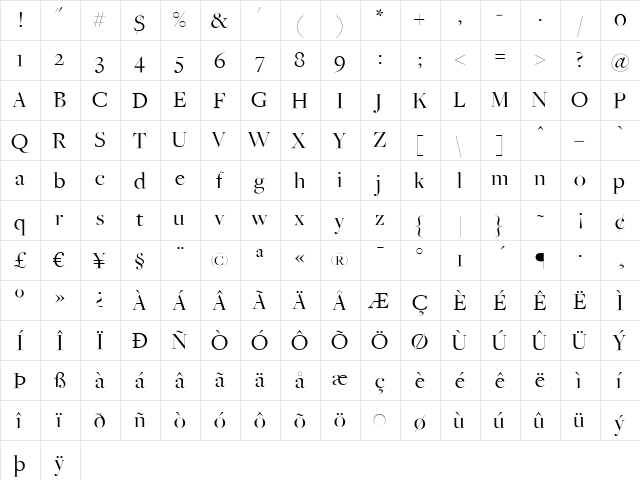
FreightBigBook Regular
| Foundry | Joshua Darden & Phil's Fonts, Inc |
| Designer | Joshua Darden |
Design Context for FreightBigBook Typeface
FreightBigBook offers clean, dependable letterforms without strong stylistic allegiance, making it a practical choice for designers who need flexibility.